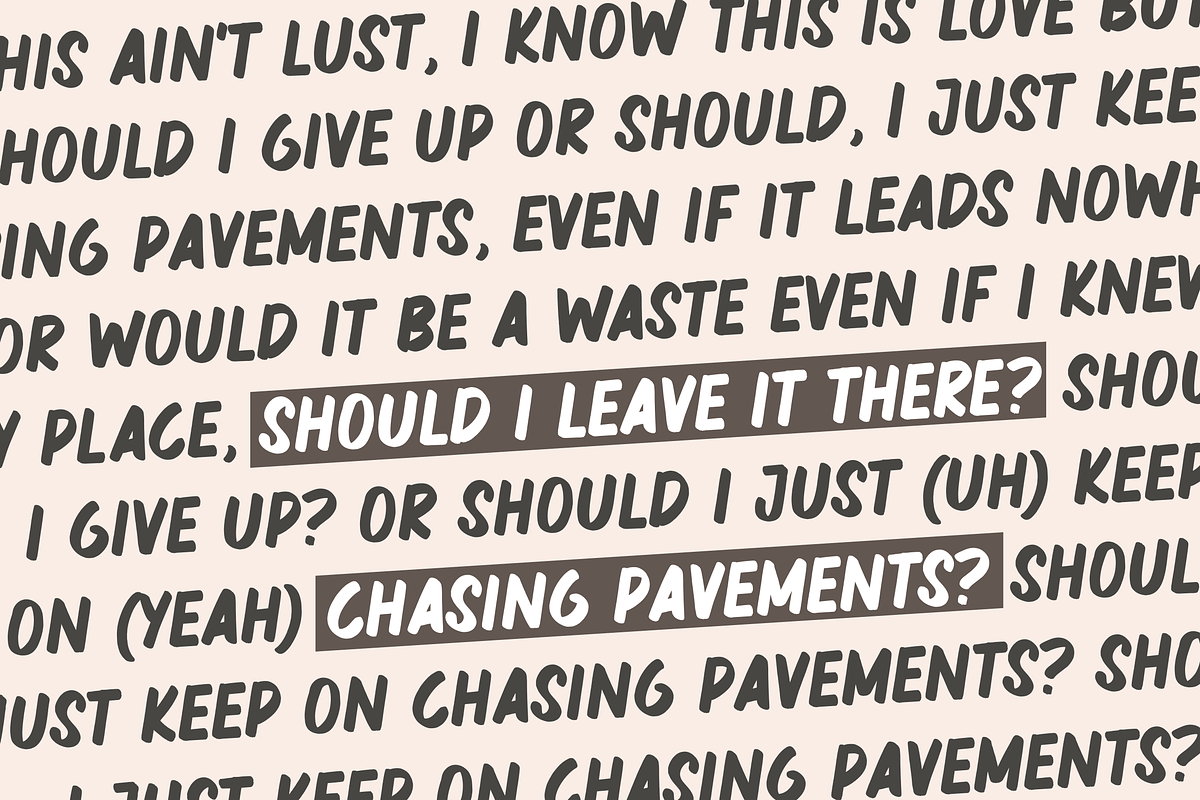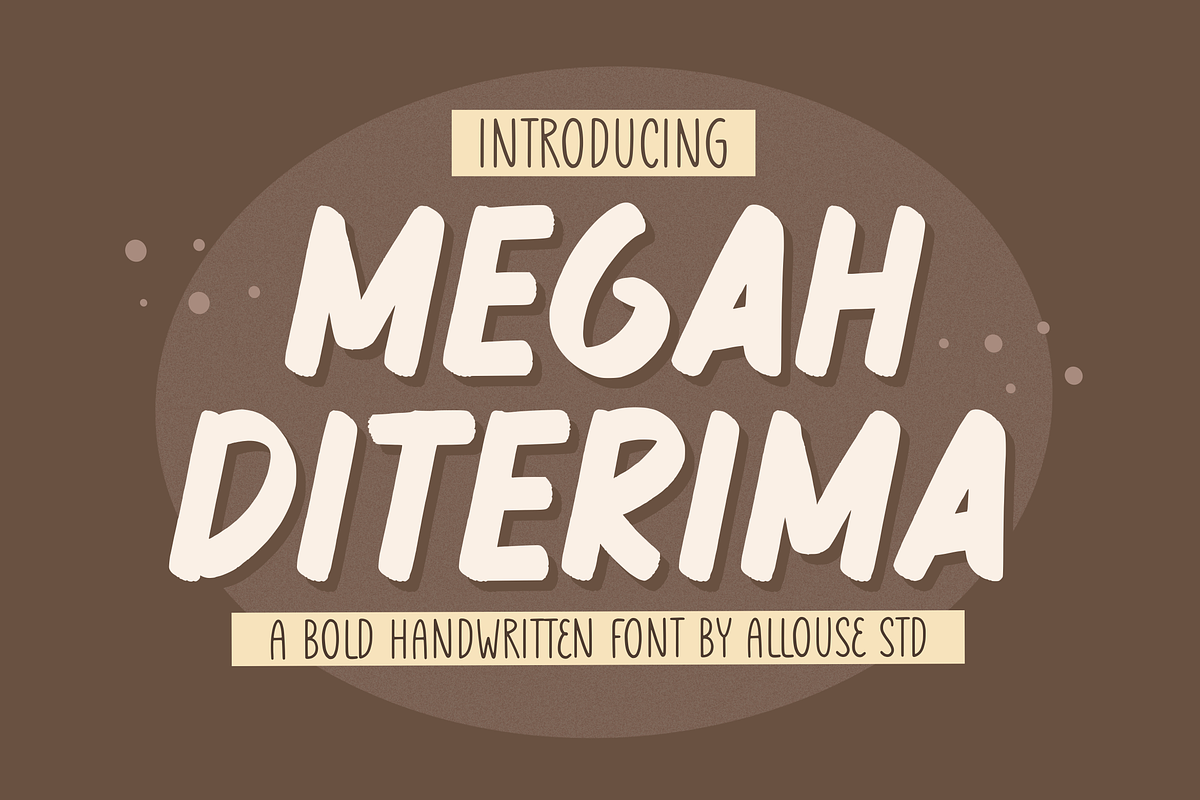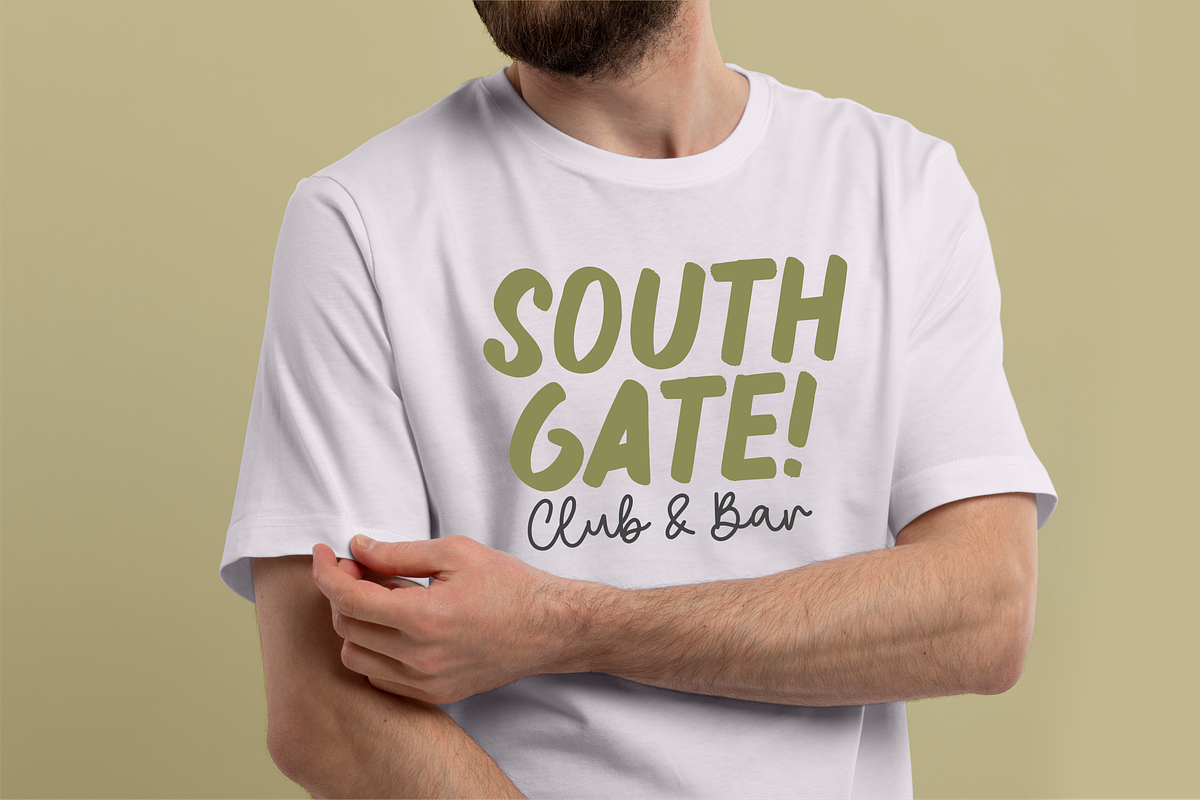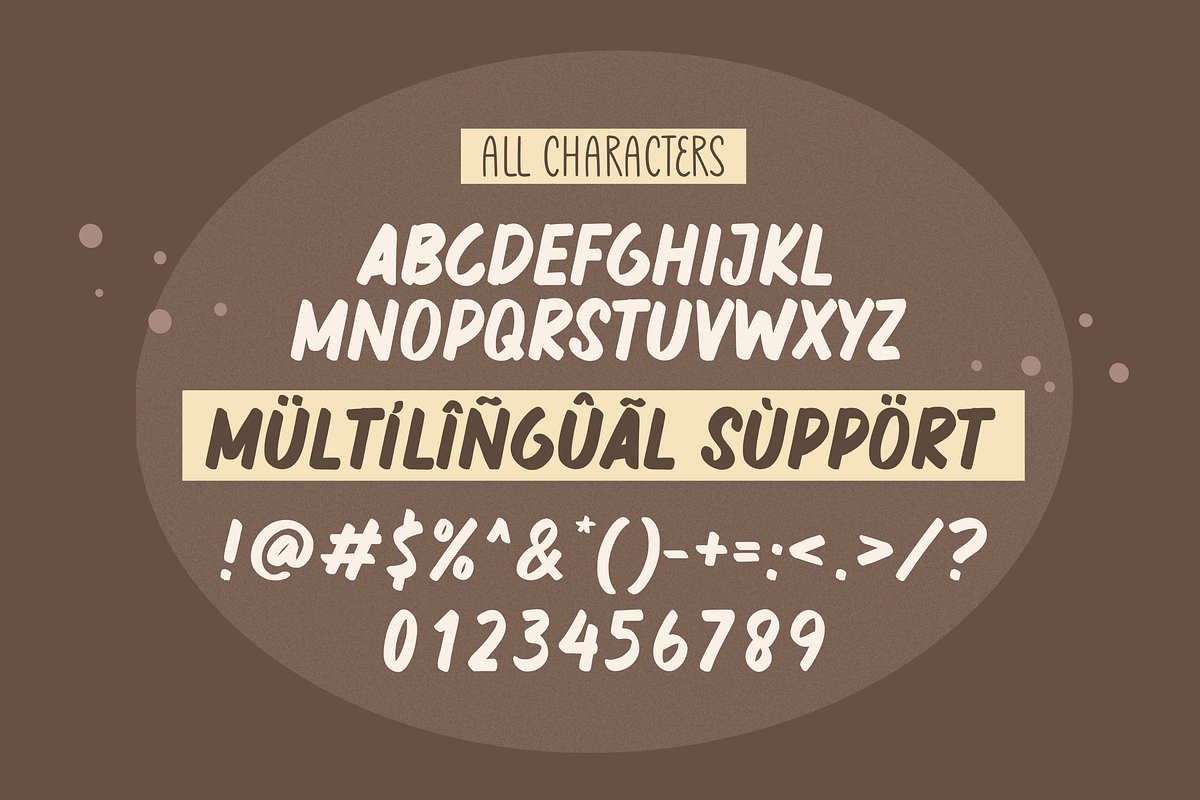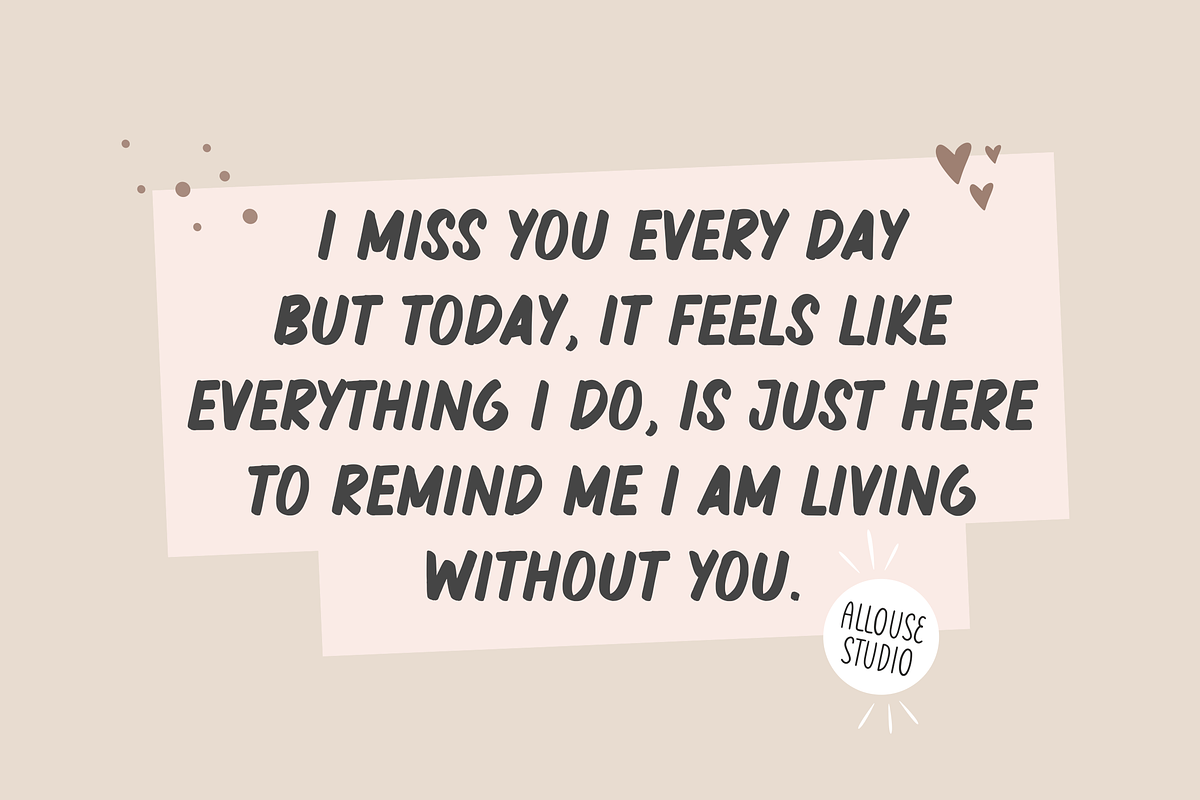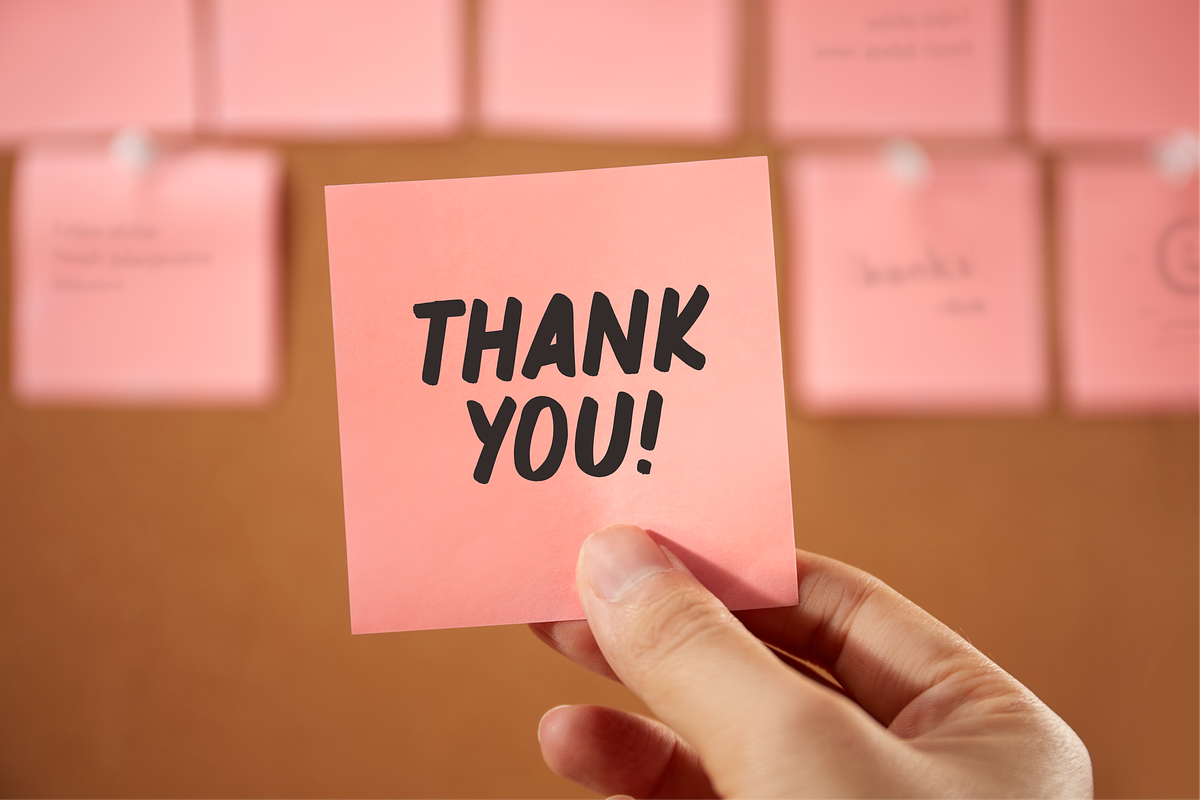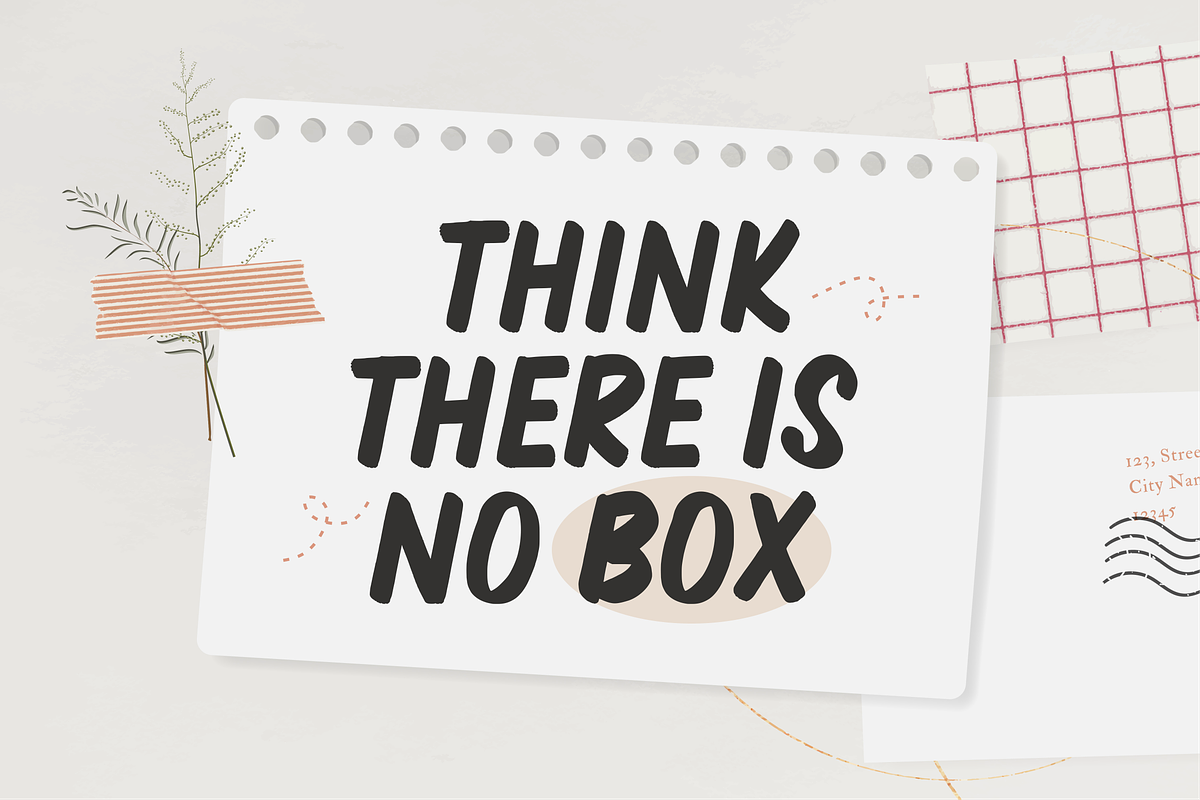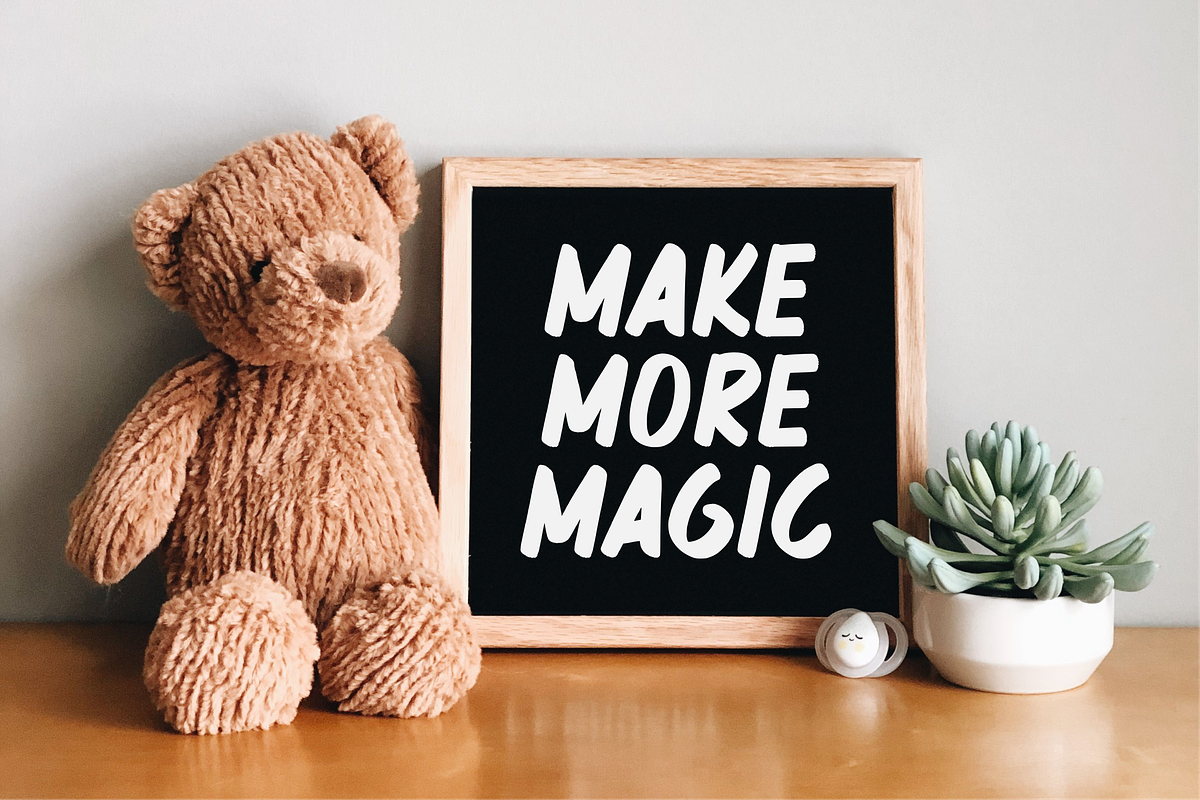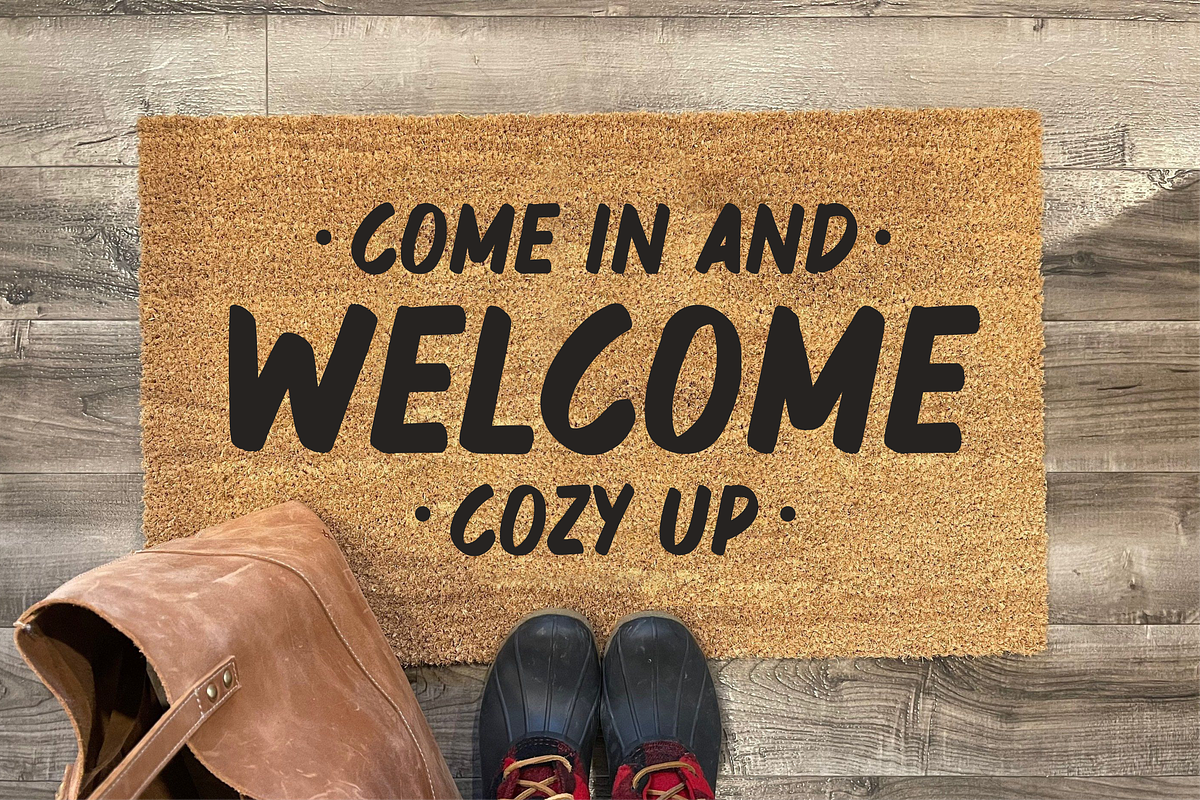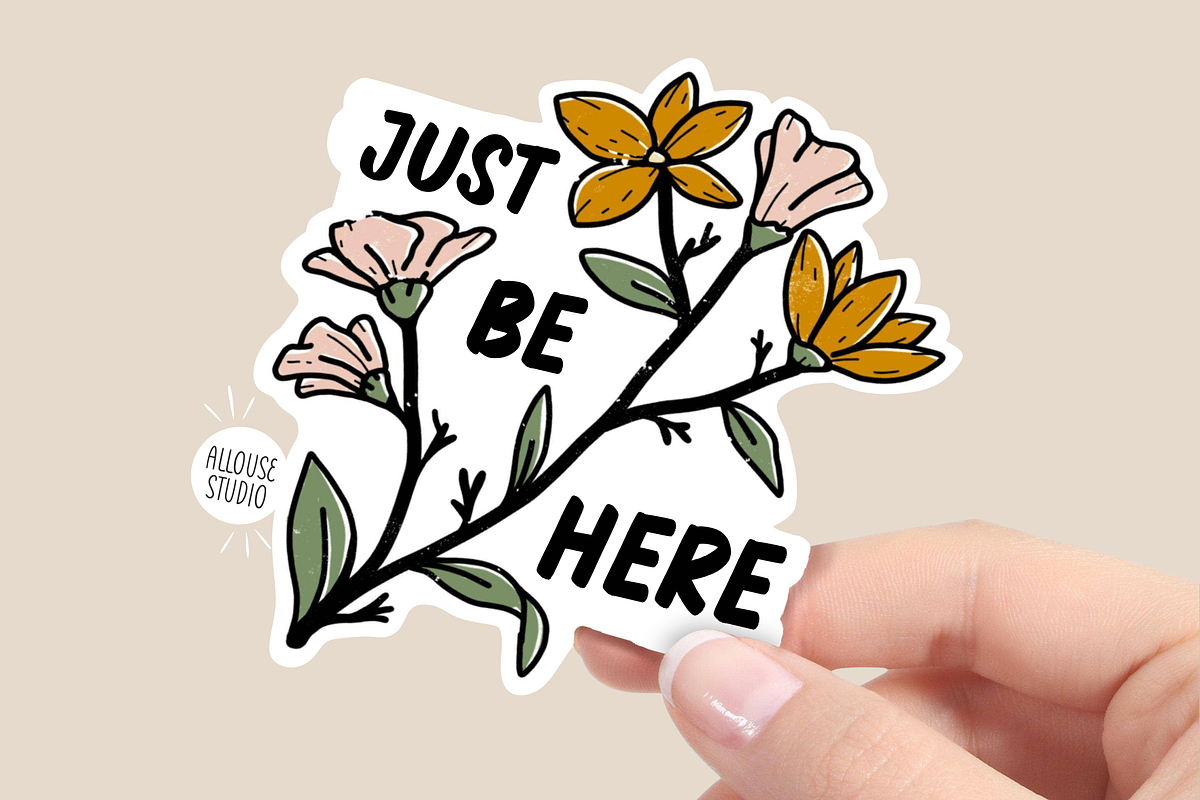
Megah Diterima A Bold Handwritten
Proudly Presenting, Megah Diterima A Bold Handwritten Font
Megah Diterima is perfect for any titles, logo, product packaging, branding project, megazine, social media, wedding, or just used to express words above the background.
Megah Diterima also come with Multi-Lingual Support.